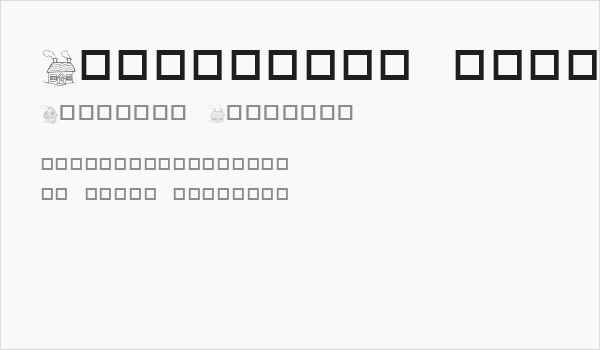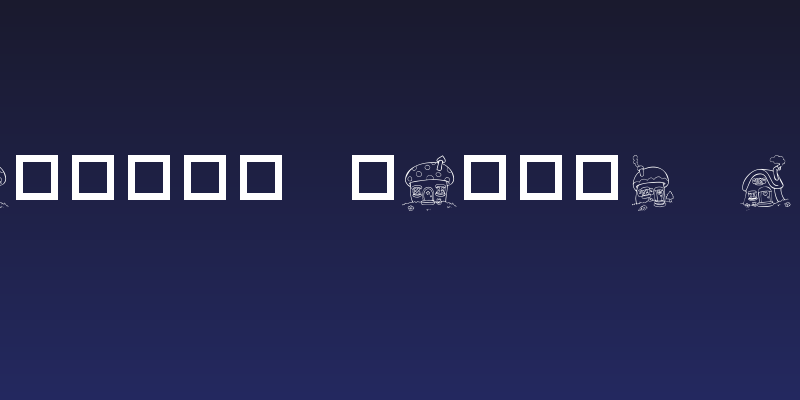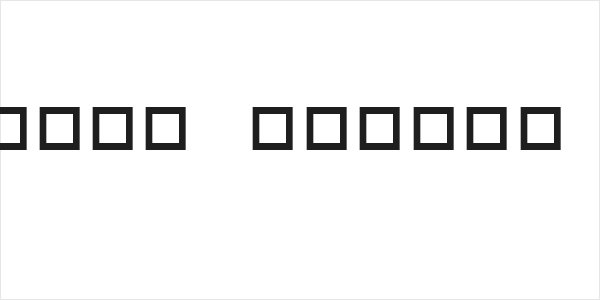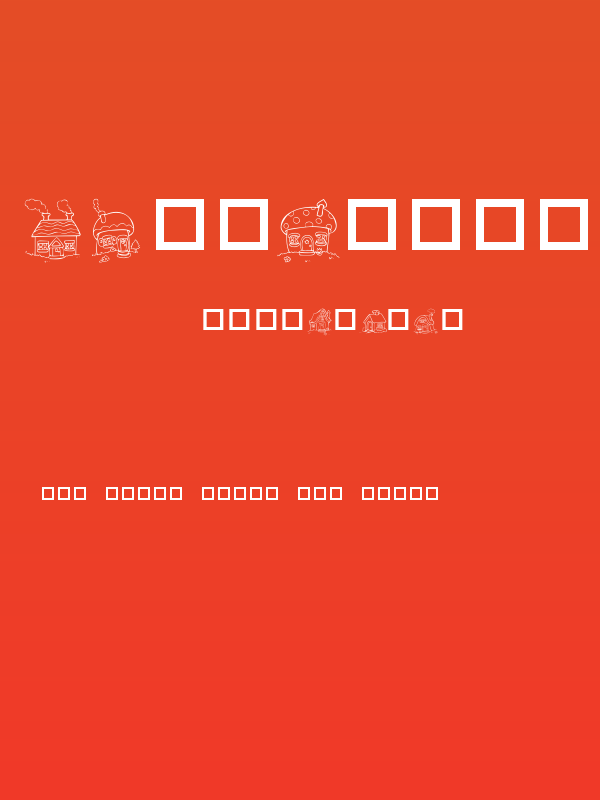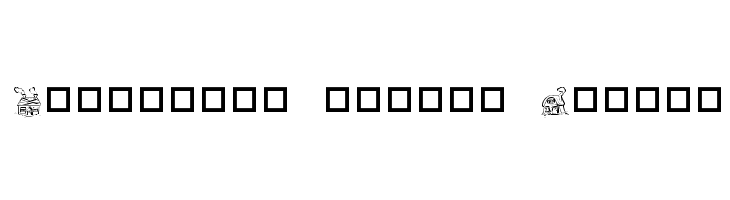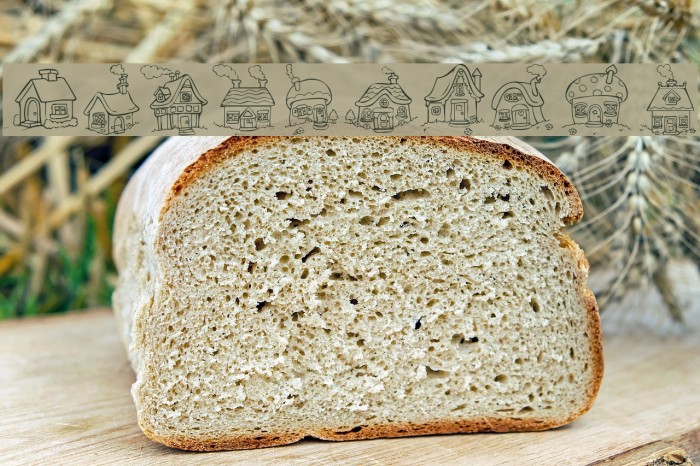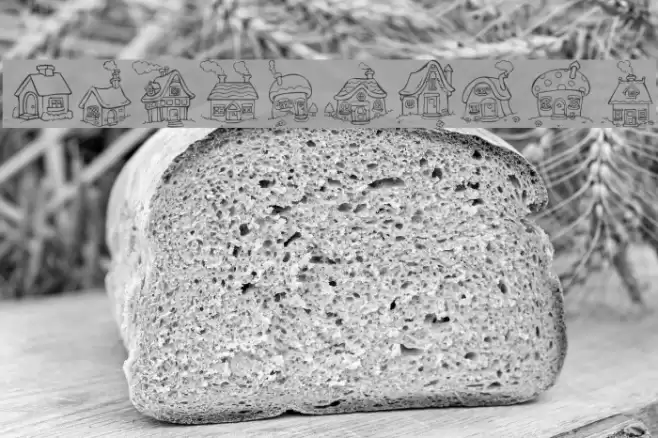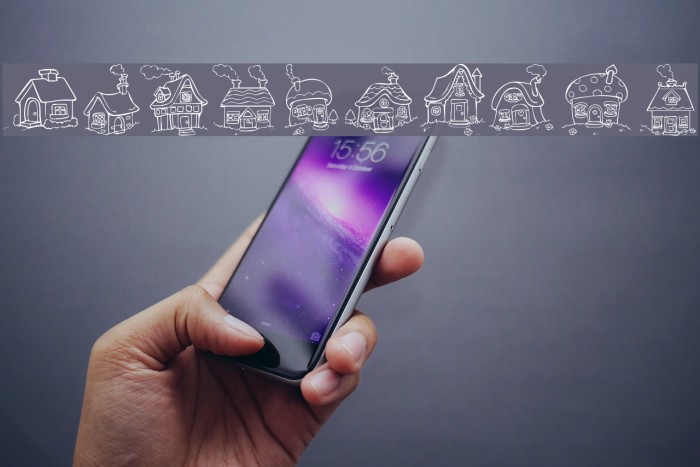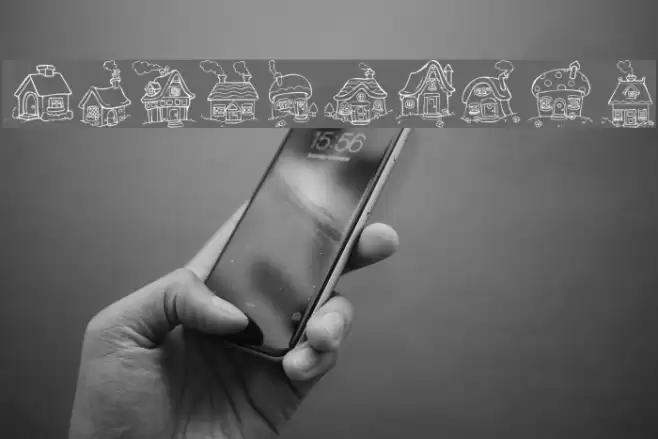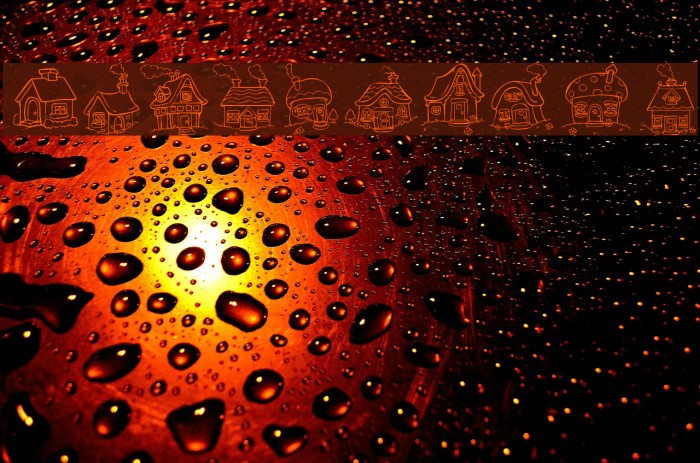
Destiny's Little Houses Font
| 全体的なスタイル | Whimsical, Playful |
| 用途 | Decorative illustrations, Art projects |
| おすすめプロジェクト | Ideal for children's book illustrations, fantasy-themed designs, or decorative art projects. |